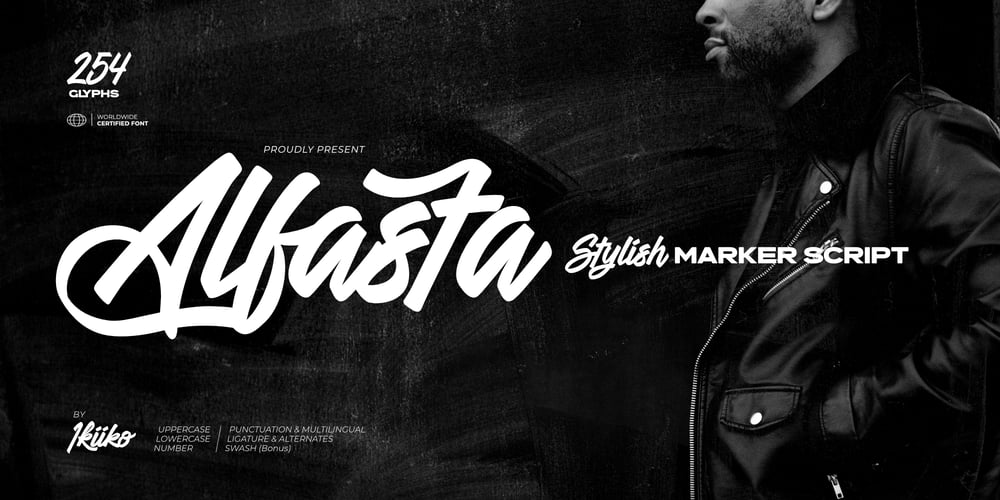
Alfasta Font Family was designed by Andhika Pradana and published by IKIIKOWRK. Alfasta contains 1 styles and family package options. Proudly present Alfast – Stylish Marker Script, created by ikiiko.Alfast is a bold and dynamic font that embodies the fluid and organic strokes of a marker. Characterized by its hand-drawn appearance, the font features smooth, flowing curves and connected letters, enhancing its natural and handwritten feel.Its thick and prominent weight ensures high visibility and a strong presence, making it ideal for designs that need to stand out. This versatile font is perfect for a variety of creative applications. It’s especially well-suited for branding, giving logos and business identities a rebellious, edgy, and artistic look.This font is very suitable for making a poster design, vintage logo, movie title, headline, apparel, magazine layout, fashion & street wear, quotes, or simply as a stylish text overlay to any background image that creating striking titles and headings that demand attention.What’s Included? Uppercase & Lowercase Number & Punctuation Alternates & Ligature Swash (Bonus) Multilingual Support Works on PC & Mac Get also a good offer & FREEBIE at our site : www.ikiiko.comEnjoy our font and if you have any questions, you can contact us by email : ikiikowrk@gmail.com